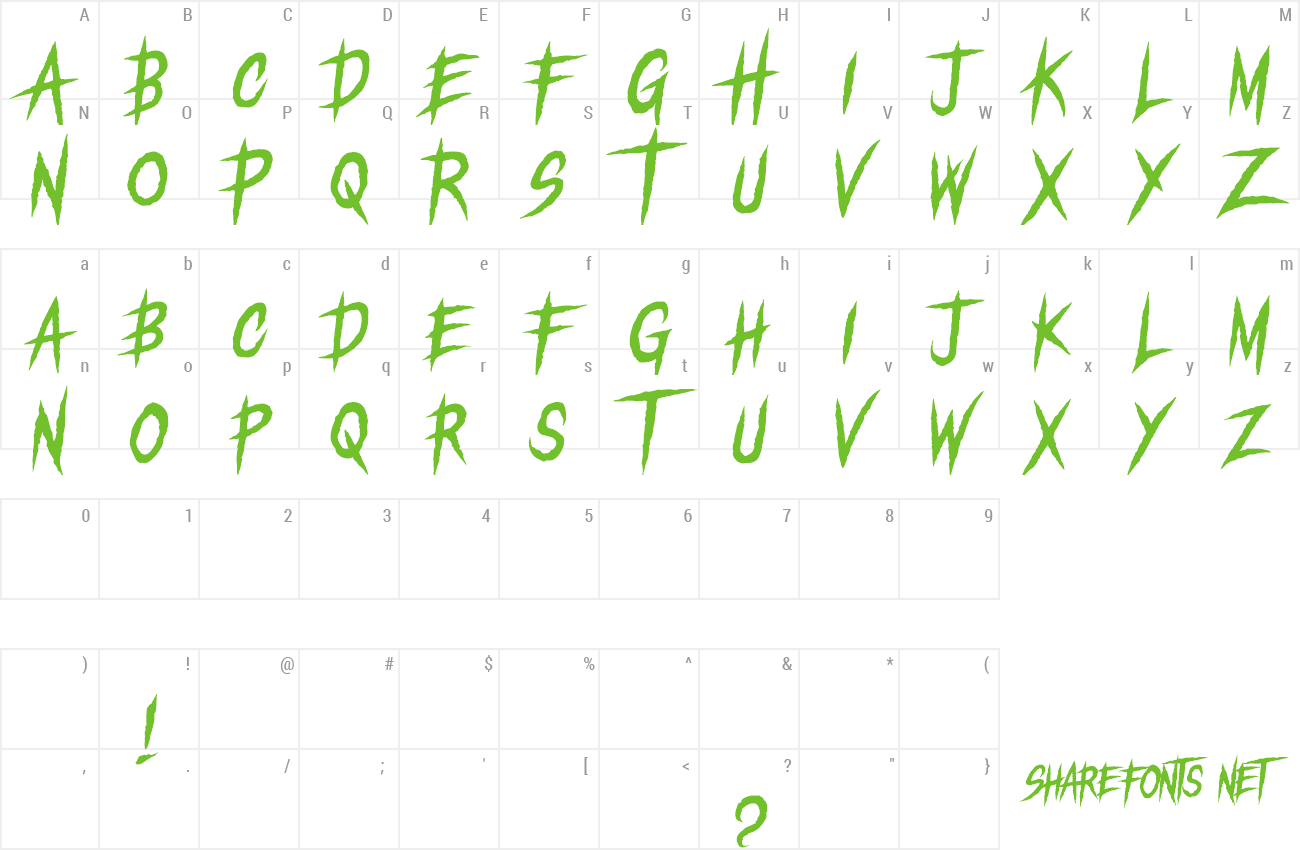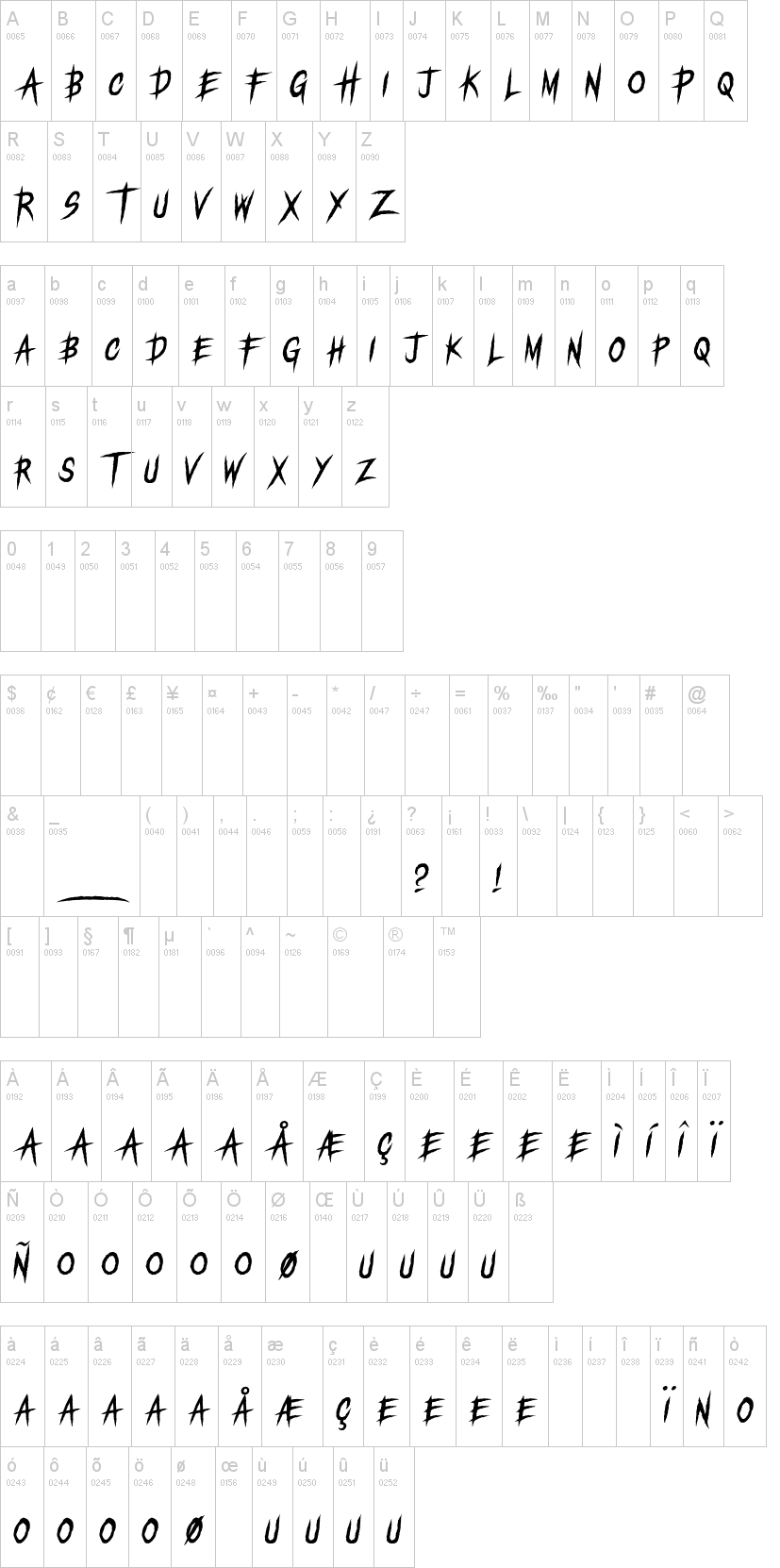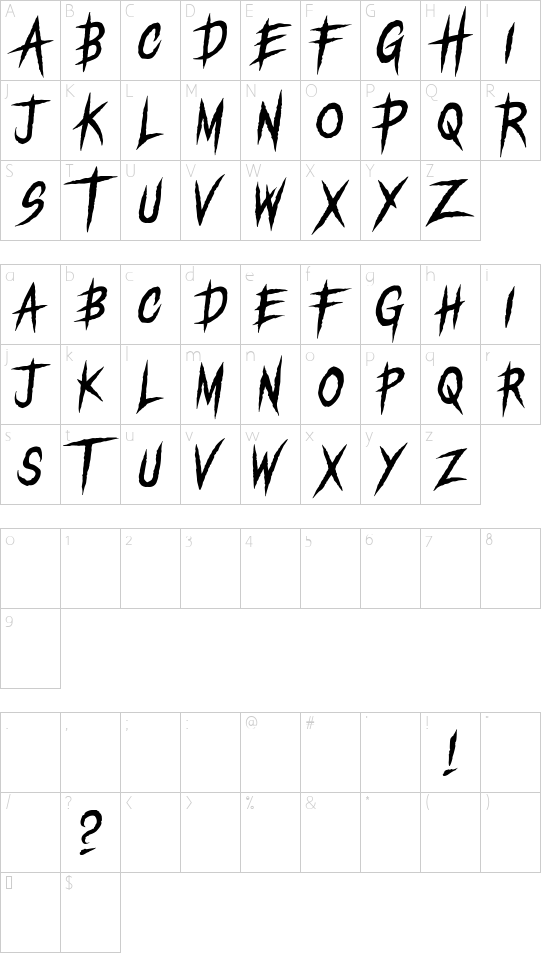
Earthen Parasite Font
Earthen Parasite Font - Web earthen parasite is created to stir up the waters. A font best described as restless nightmare due to its looks.
Web earthen parasite is created to stir up the waters. A font best described as restless nightmare due to its looks.
A font best described as restless nightmare due to its looks. Web earthen parasite is created to stir up the waters.
Web Earthen Parasite Is Created To Stir Up The Waters.
A font best described as restless nightmare due to its looks.